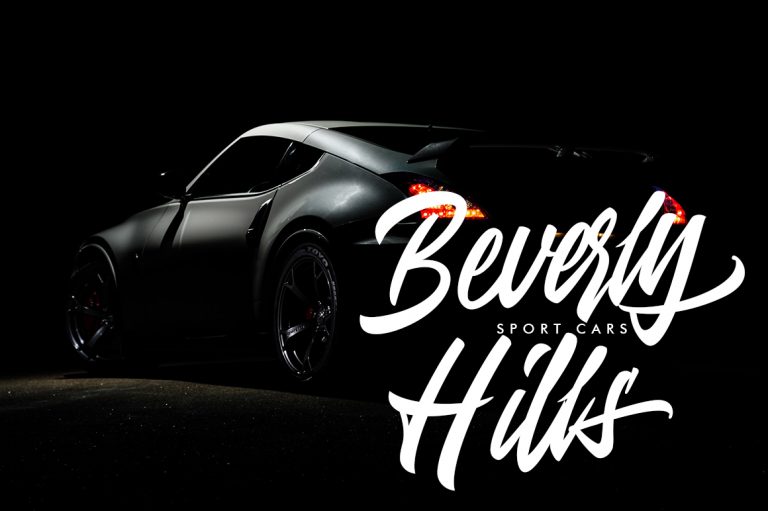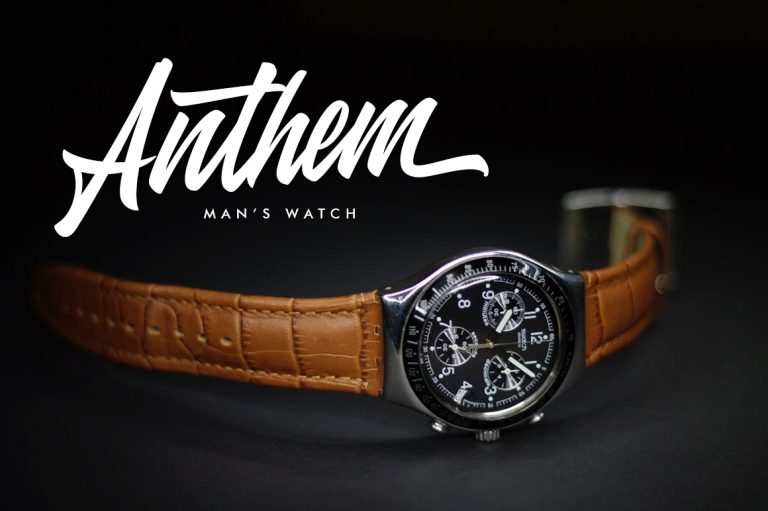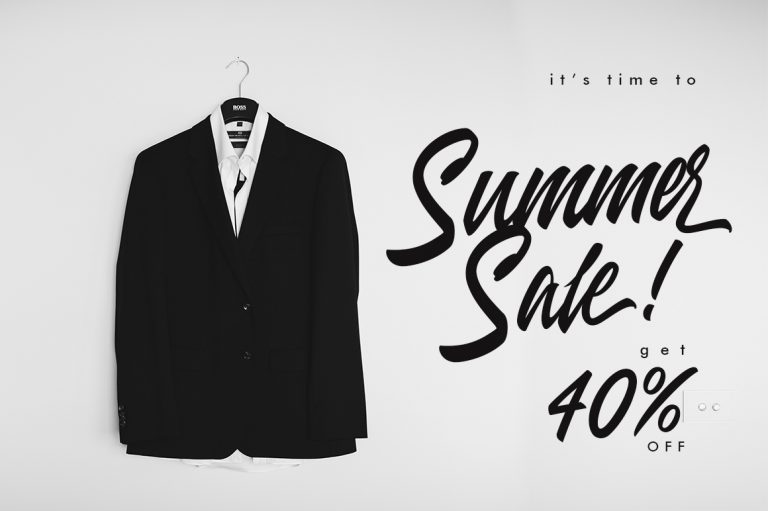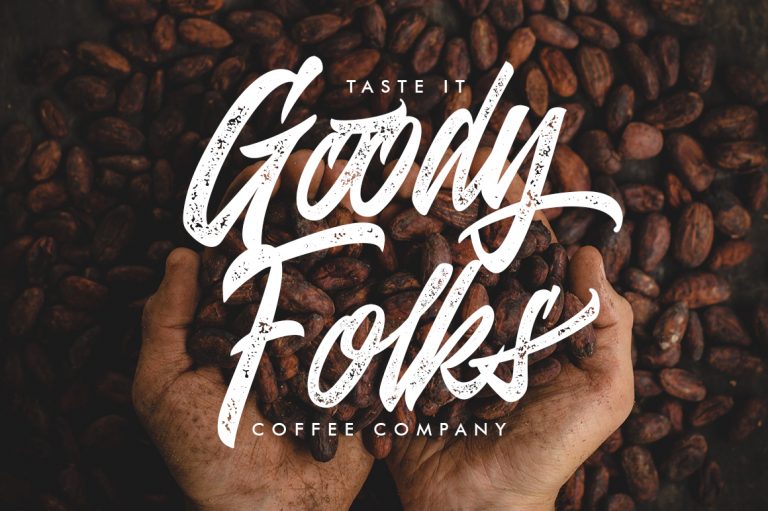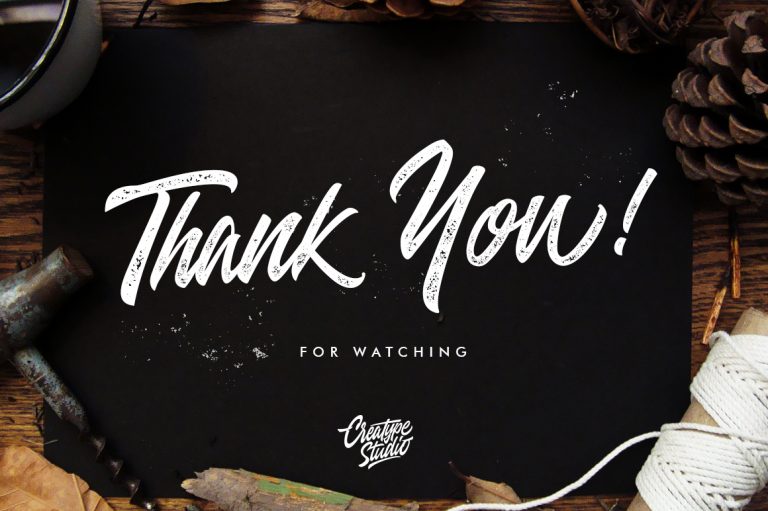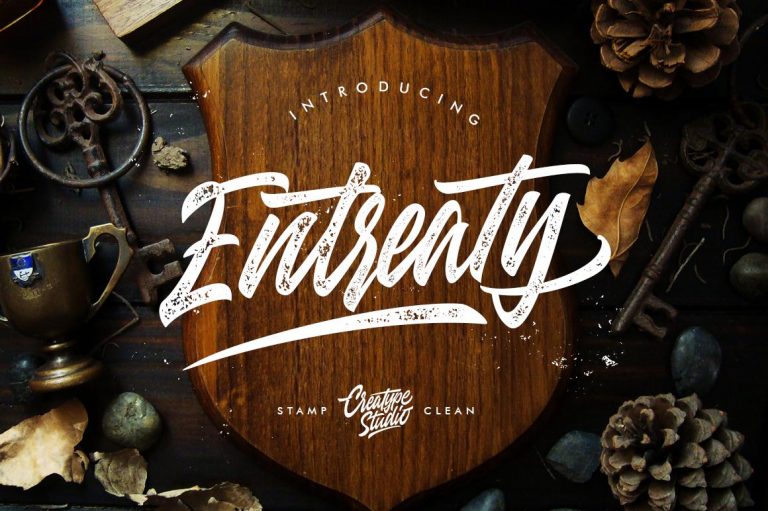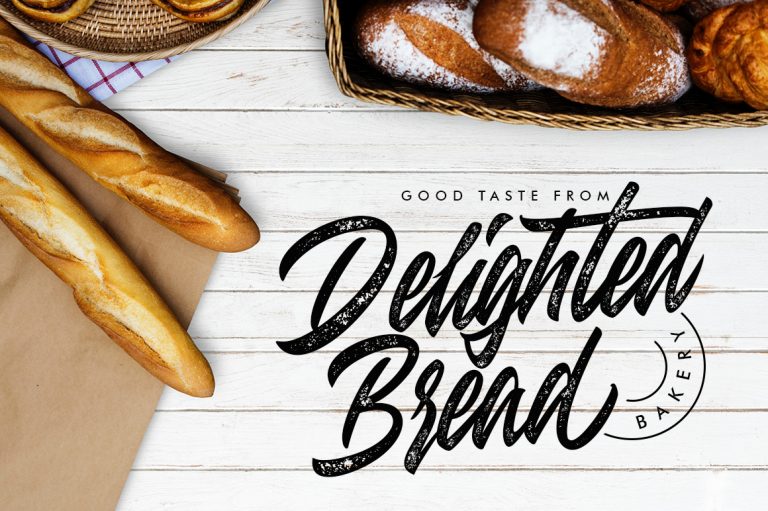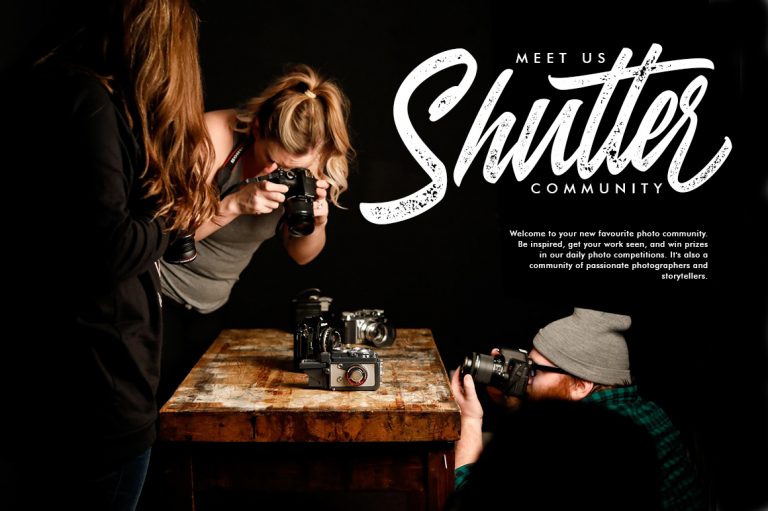
Hello! Entreaty is a bold modern handlettering script with strong style and dramatic movement. It’s allowing you to create beautiful hand-made typography in an instant.
Entreaty is perfect for photography, watermark, social media posts, advertisements, logos & branding, invitation, product designs, label, stationery, wedding designs, product packaging, special events or anything that need handwriting taste.
- More than 500 of glyphs
- Ton of glyphs (include Uppercase, Lowercase, Numerals & Punctuations, Ligature, Swashes)
- Ligature & Stylistic alternate
Entreaty Handlettering Script